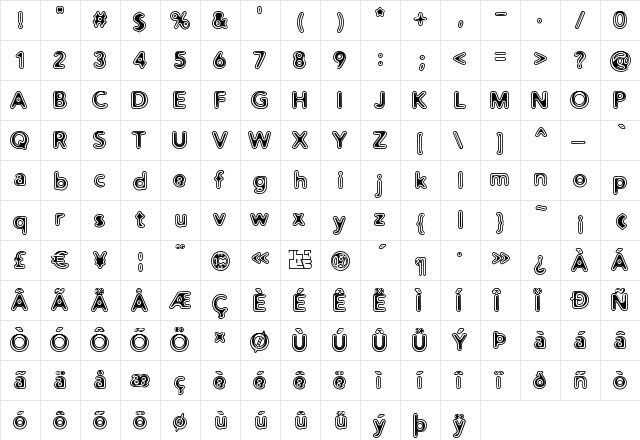
Distro Vinyl Regular
Design Context for Distro Vinyl Typeface
Distro Vinyl offers clean, dependable letterforms without strong stylistic allegiance, making it a practical choice for designers who need flexibility.